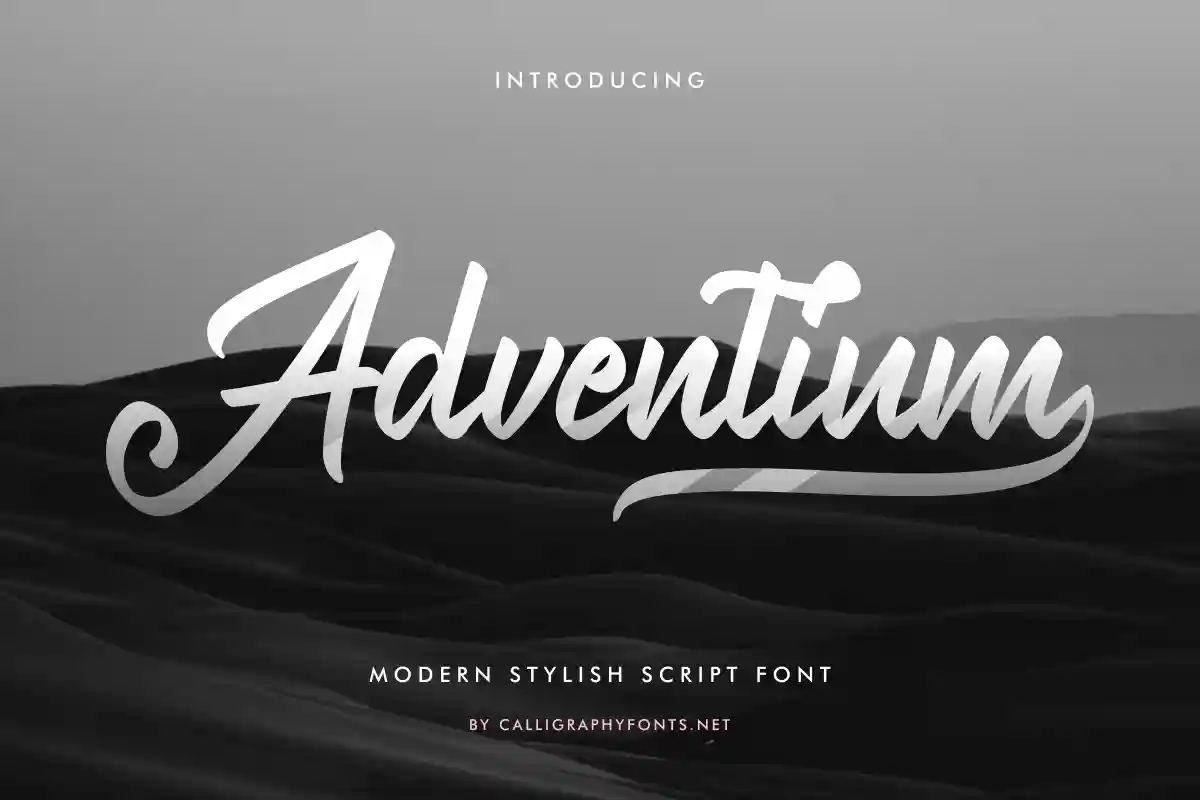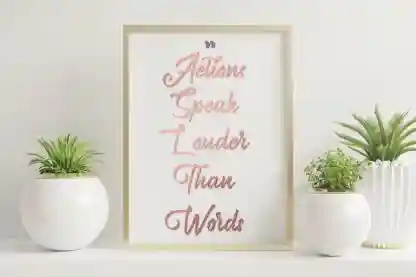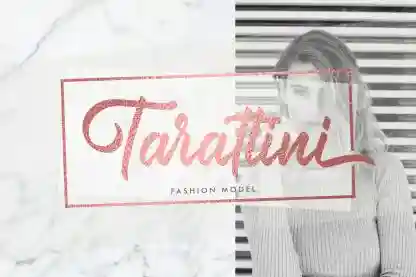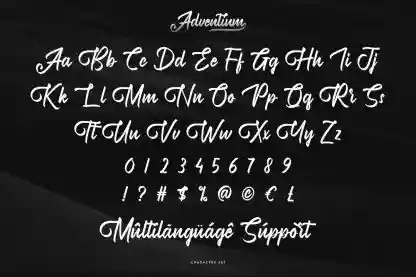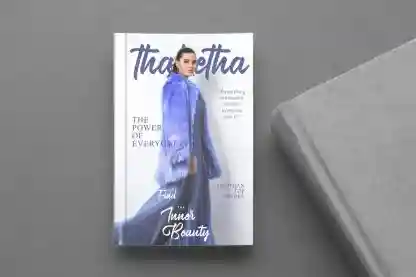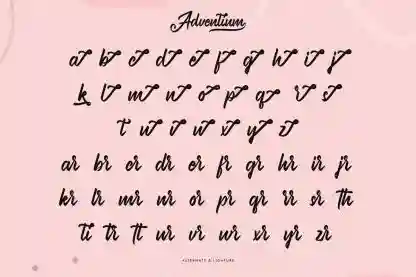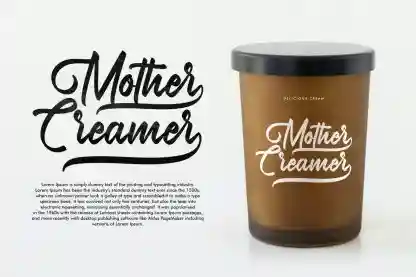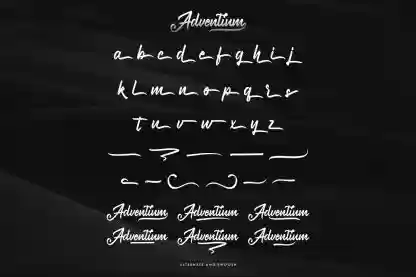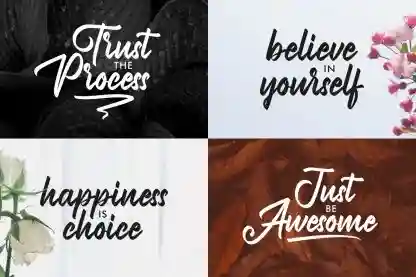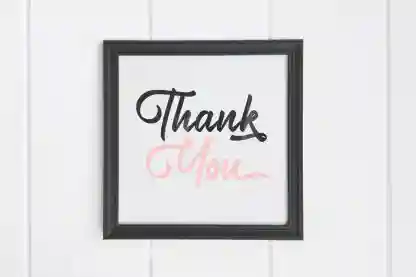
Adventium Calligraphy Font
Adventium Font is an original modern calligraphy font by CalligraphyFonts.net. It has sophisticated characters that will be awesome for social media, video, logotype, invitation, flyer etc
Adventium Font is a modern calligraphy font. It has unique looks that are beautiful, modern, elegant, luxury, lettering and sophisticated brush font.
Add a touch of sophistication and class to your creative projects with Adventium Calligraphy Font, a beautifully handcrafted script typeface that combines classic calligraphy style with modern elegance. Featuring graceful curves and smooth strokes, this font is perfect for projects that require a luxurious and romantic touch.
Perfect for wedding invitations, premium logos, social media graphics, product packaging, and high-end branding, Adventium delivers elegance and professionalism in every letter. Each glyph is carefully designed to ensure smooth readability while maintaining a handcrafted, authentic look.
Perfect for wedding invitations, fashion branding, luxury product packaging, and social media graphics, Adventium adds a refined and stylish look to any design.
Ideal for wedding invitations, premium branding, fashion designs, product packaging, and social media graphics, Adventium gives your text a refined and stylish look that stands out.
- Versatile and premium
- Authentic calligraphy design